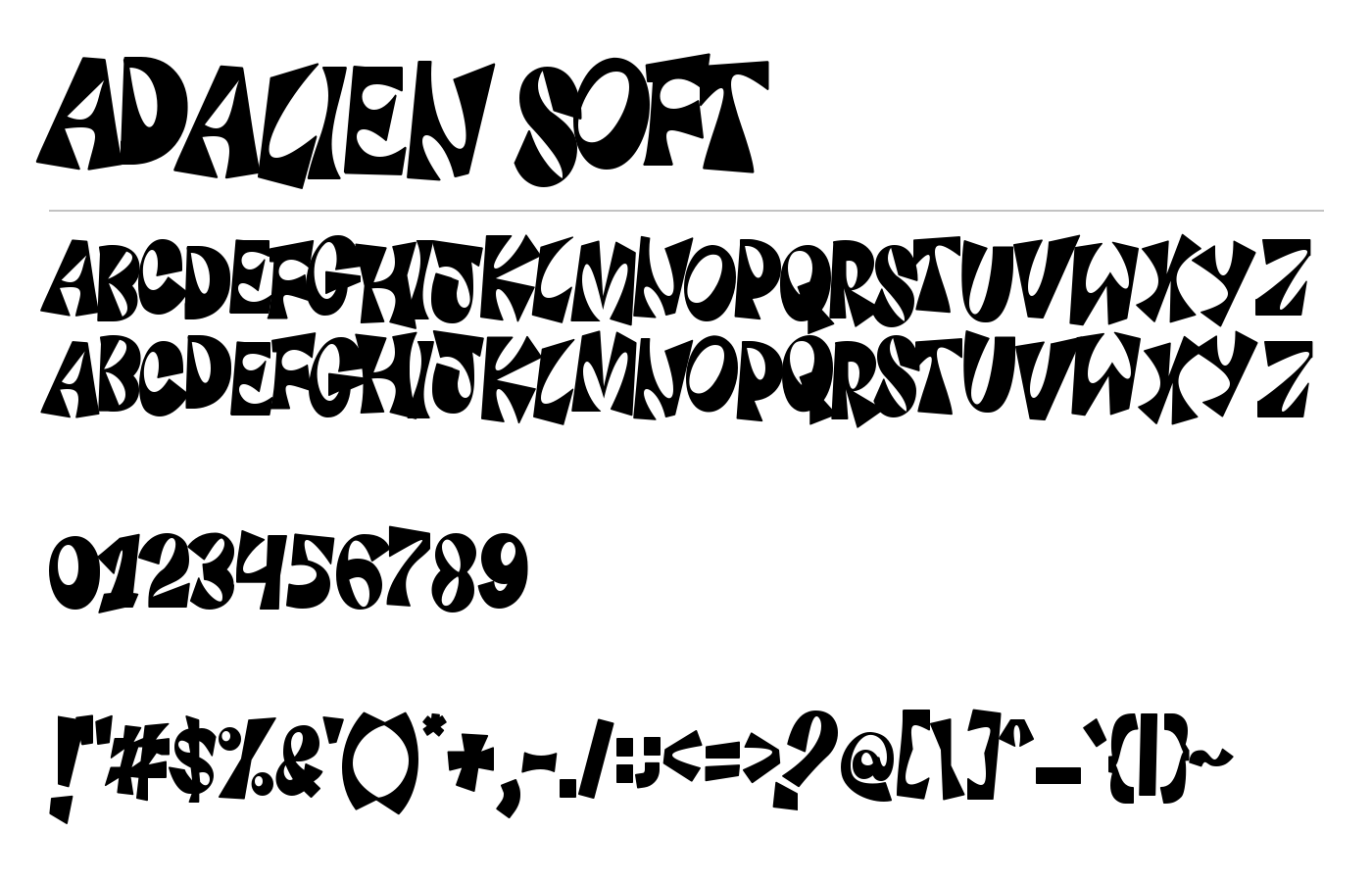
Adalien Soft is a bold, playful display font featuring irregular, angular letterforms that create a lively, dynamic feel. Its broad, quirky shapes and uneven strokes make it ideal for creative projects needing a distinctive, fun personality, such as posters, logos, and children’s branding. This font brings a sense of energy and uniqueness that stands out in eye-catching headlines and expressive graphic designs.
Adalien Soft Font
About Adalien Soft Font
| Font family | Adalien Soft Font |
| Designer | Mozyen Studio |